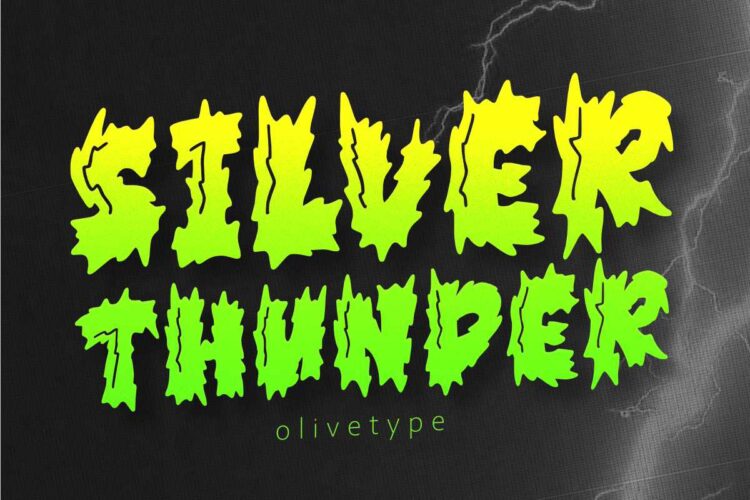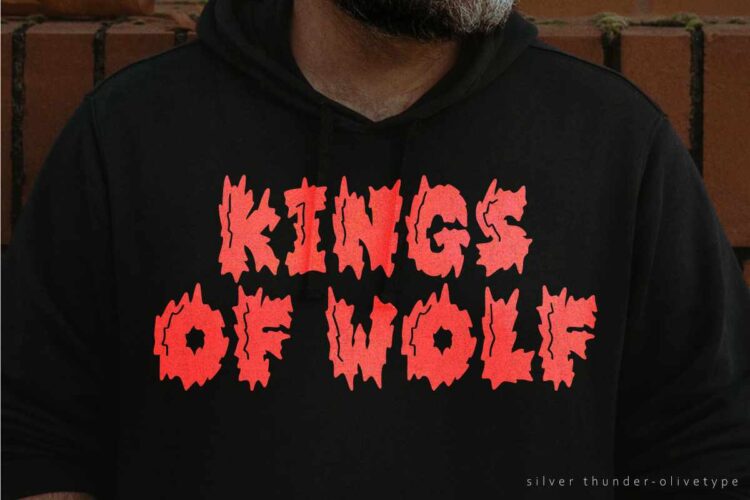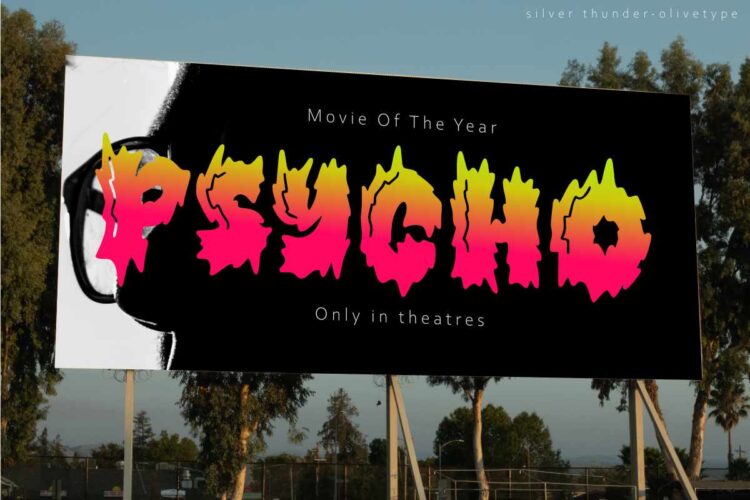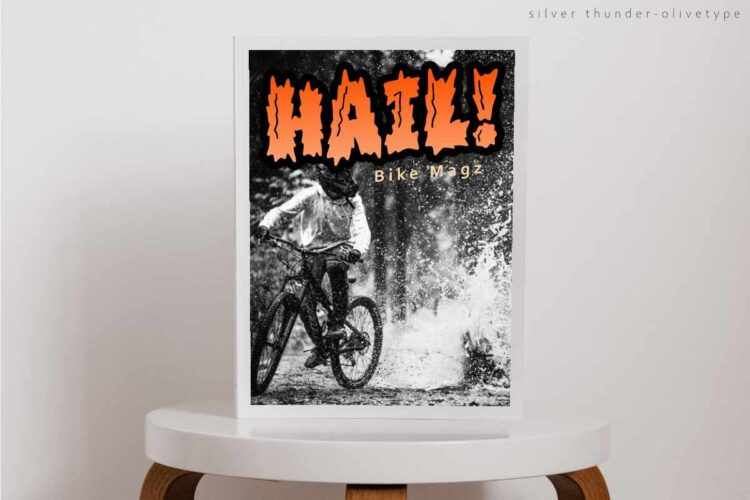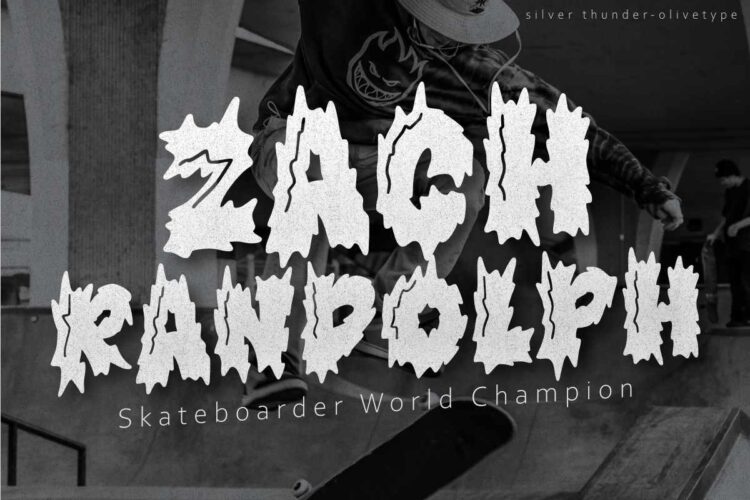
Silver Thunder is a unique and badass font to add some edge to your designs. This graffiti-inspired font is a good option for apparel, posters, headlines, magazines, and more. With its cool black metal aesthetic, Silver Thunder will give your work a truly one-of-a-kind look.